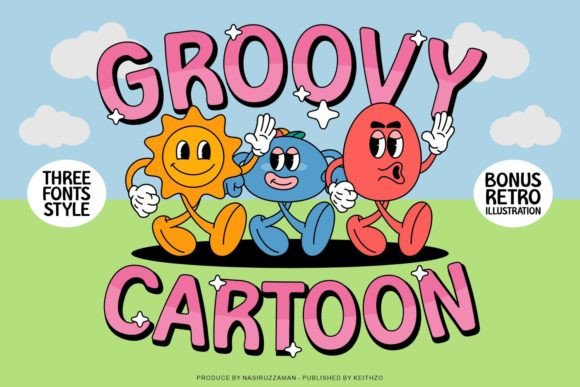
Introducing the Groovy Cartoon Font, a captivating addition to your font collection that is bound to make your creative projects come alive! Created by the talented Keithzo from 7NTypes, this display font is the ultimate choice for those seeking the best font for a modern CV.
With its unique blend of playfulness and professionalism, the Groovy Cartoon Font brings a refreshing touch to any design project. Whether you're working on a resume, a branding campaign, or a social media post, this font will effortlessly catch the eye and leave a lasting impression on your audience.
Imagine the impact of your CV when it is presented in this remarkable font. Stand out from the crowd and let your personality shine through with its captivating curves and stylish strokes. Recruiters and employers won't be able to resist the charm and creativity that this font exudes.
But it doesn't stop there! The Groovy Cartoon Font is incredibly versatile, making it perfect for a wide range of design ventures. From posters and flyers to logos and website headers, this font adds a touch of excitement and originality to every project. Let your imagination run wild as you explore the endless possibilities this font offers.
Not only does the Groovy Cartoon Font elevate your designs, but it also sparks emotions and creates a connection with your audience. Its lively and vibrant appearance evokes feelings of joy, nostalgia, and adventure. Your designs will instantly come to life, drawing people in and leaving a lasting impression.
In addition to its captivating aesthetics, this font is also highly legible, ensuring that your message is conveyed with clarity and impact. Its carefully crafted letterforms guarantee readability, making it a practical choice for both digital and print applications.